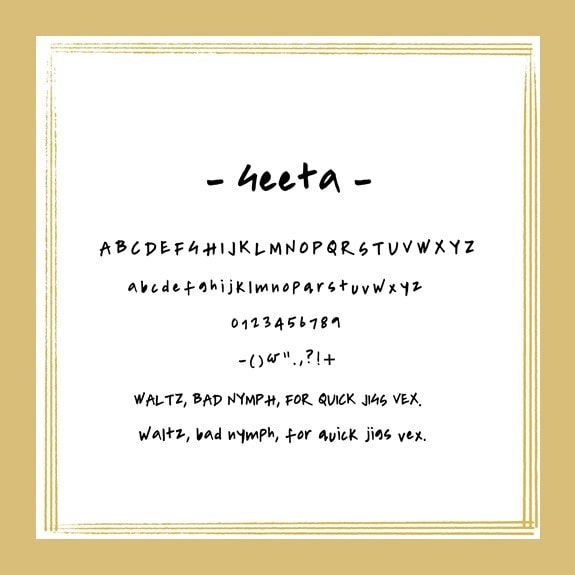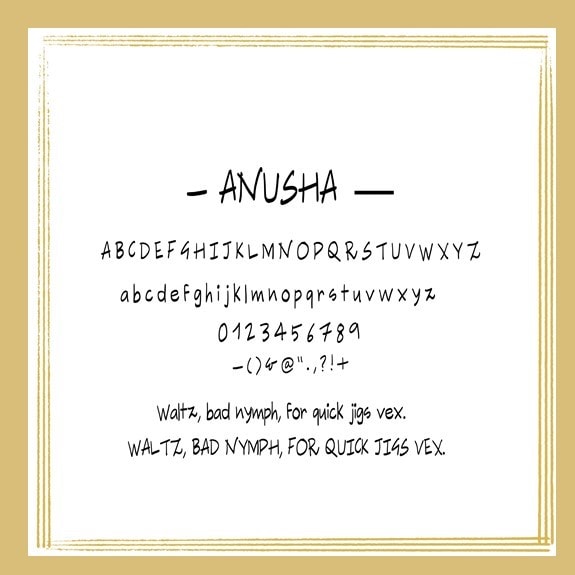
Handwriting to Typeface Using Calligrphr
I had trouble figuring out Calligraphr since this class is about a whole different system, but I figured it out, using another youtube tutorial when I got stuck.
Here is my first attempt:
Handwriting to Typeface Using Calligrphr - image 1 - student project
And here is my second attempt, that I named after myself, because it does resemble my handwriting a lot!
Handwriting to Typeface Using Calligrphr - image 2 - student project